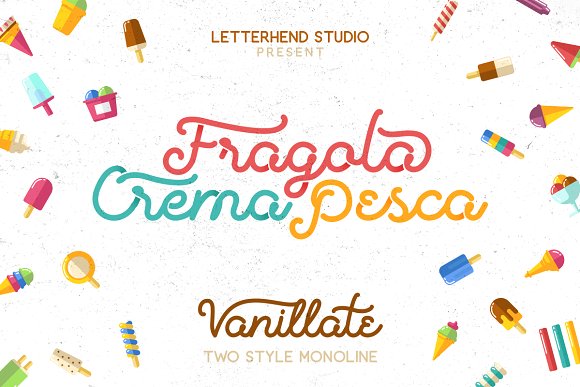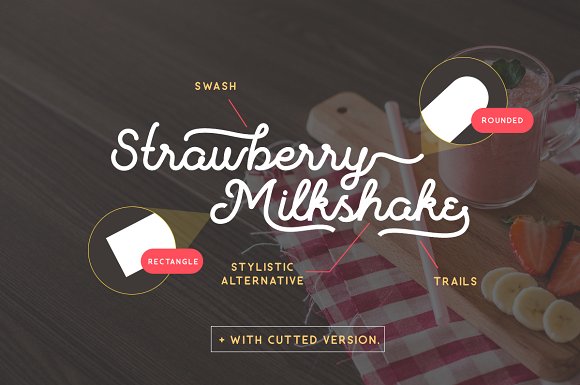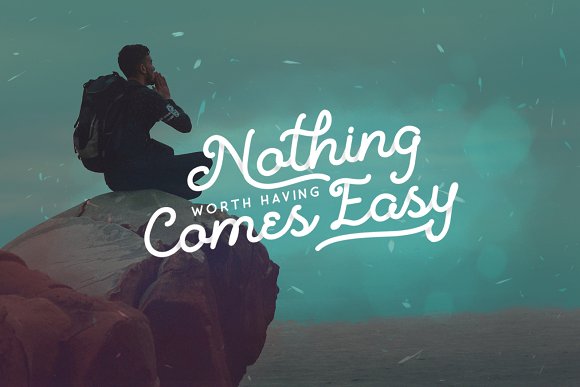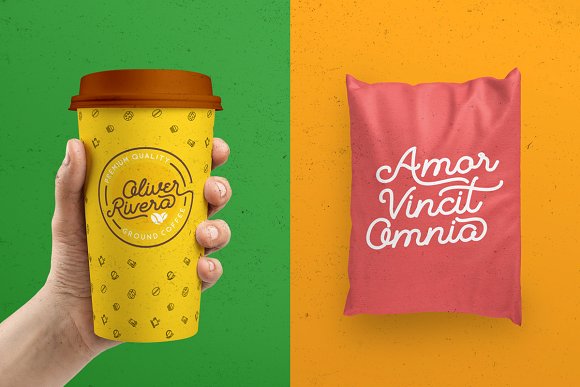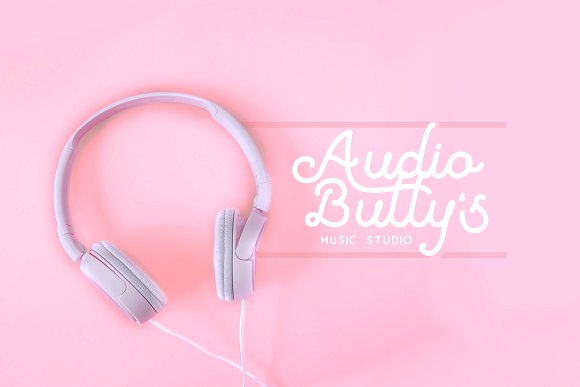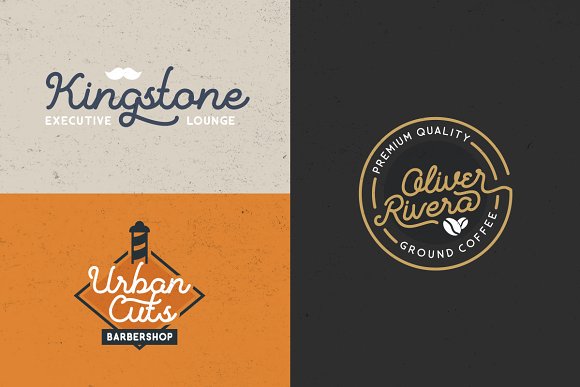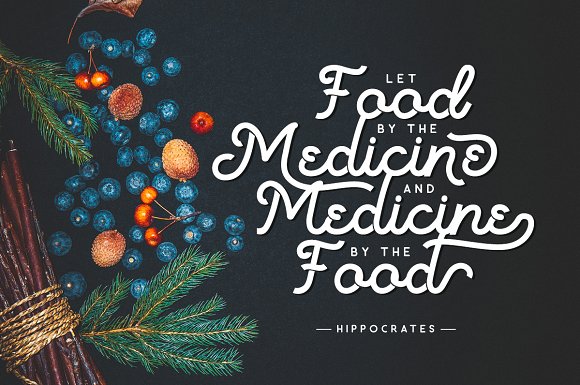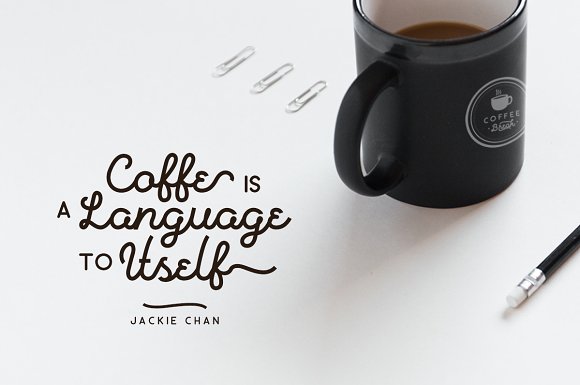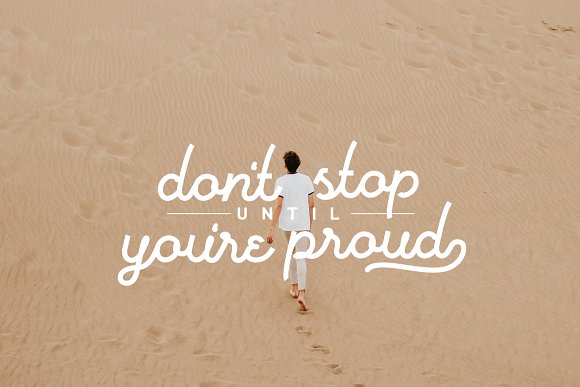
HomeScript FontsVanillate Font Script Fonts Vanillate Font FacebookXPinterestWhatsApp Vanillate Font Poster 2 Vanillate Font Poster 3 Vanillate Font Poster 4 Vanillate Font Poster 5 Vanillate Font Poster 6 Vanillate Font Poster 7 Vanillate Font Poster 8 Vanillate Font Poster 9 About Vanillate Font A playful monoline font created by the Letterhend Studio. DOWNLOAD NOW People also explored Buttuh Font Dungeons Font Actually Font Newtoon Font Piggy Mania Font Cremotic Font Maullina Font Parabumcy Font Enterrnal Font 298 0 TagsVanillate Font Previous articleSignerella FontNext articleSakra Font LEAVE A REPLY Cancel reply Comment: Please enter your comment! Name:* Please enter your name here Email:* You have entered an incorrect email address! Please enter your email address here Website: Save my name, email, and website in this browser for the next time I comment. Personal Use Free Snaily Personal Use Free Read more about this font Oatmeal Personal Use Free Read more about this font Darla Personal Use Free Read more about this font Pinky Personal Use Free Read more about this font BLOG Fonts That Capture the Spirit of New York City New York City is more than just a place—it’s an experience, a rhythm, a visual language... Exploring Font Trends Modern Sans-Serif Fonts That Brands Love in 2025 Elegant Wedding Invitation Fonts – Handwritten & Script Fonts